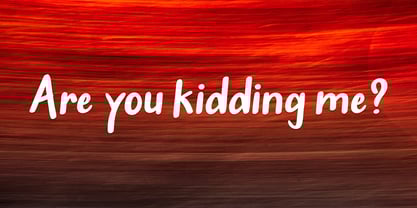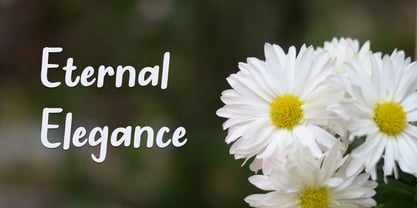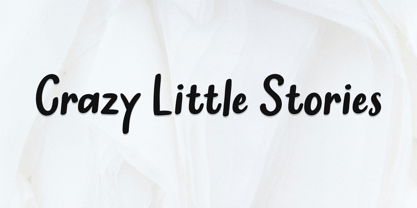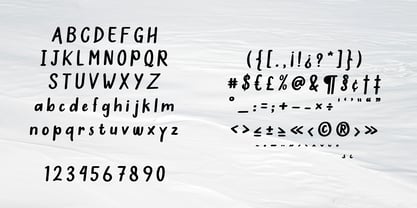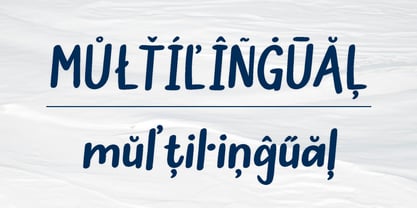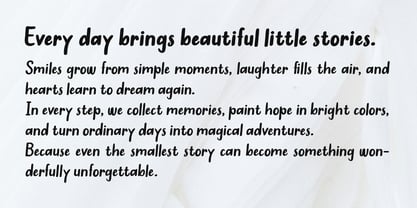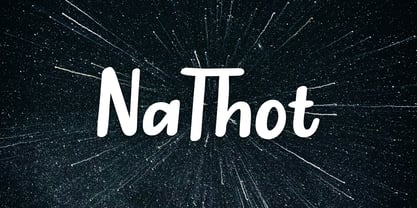
Nathot
by ZorkSlide
The Nathot Font Family was designed by Zuhayr Zunayra and published by ZorkSlide. Nathot contains 2 styles and family package options. More about this family
NaThot is a playful handwritten display font with smooth curves and a friendly personality. Inspired by natural pen strokes, NaThot delivers a casual yet charming feel that brings warmth and approachability to any design. With its rounded shapes and relaxed rhythm, NaThot is perfect for children’s projects, branding, social media graphics, packaging, quotes, posters, greeting cards, and creative crafts. It works beautifully for both headlines and short texts, adding a cheerful handmade touch while staying clean and readable. Whether you’re creating fun logos, cozy invitations, or eye-catching titles, NaThot helps your designs feel personal, joyful, and full of character.
Designers: Zuhayr Zunayra
Foundry: ZorkSlide